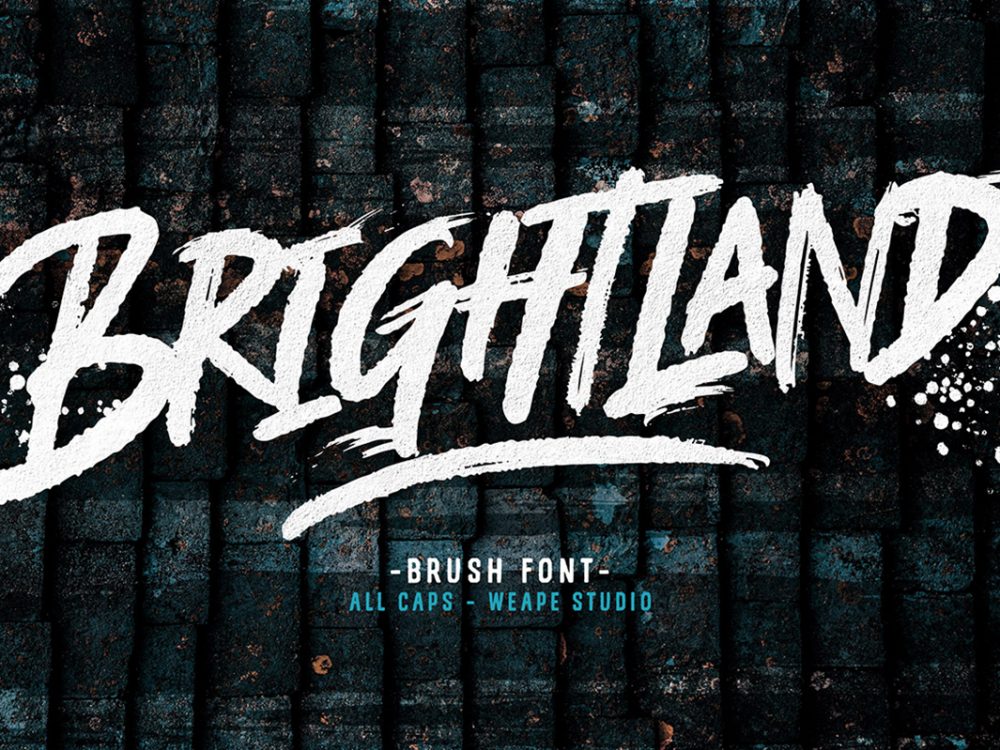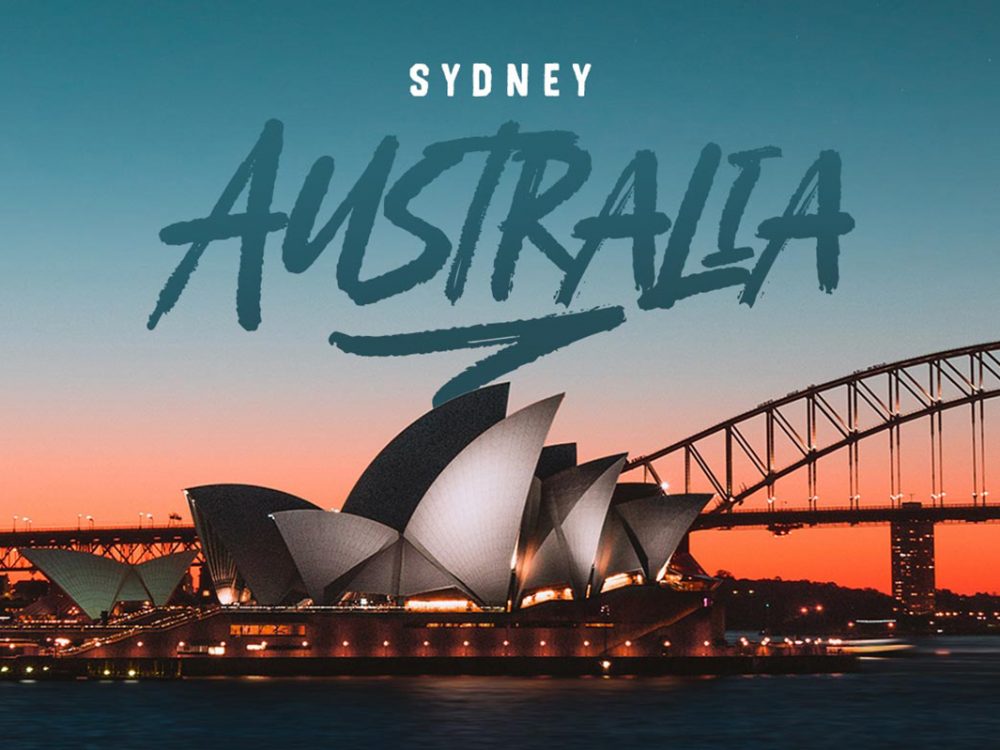
Brightland Free Font
Brightland Free Font is an interesting modern beautiful handwritten font that simulates detailed brush writing and is very suitable for creating various unique design projects that require a scripted font. These can be posters, wedding invitations, cards, branding, flyer prints, and more. If you wish to access more features and use them for commercial work please buy the full version.